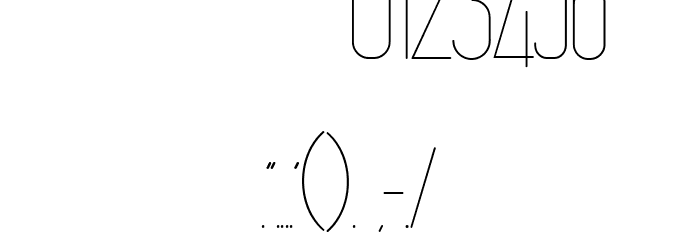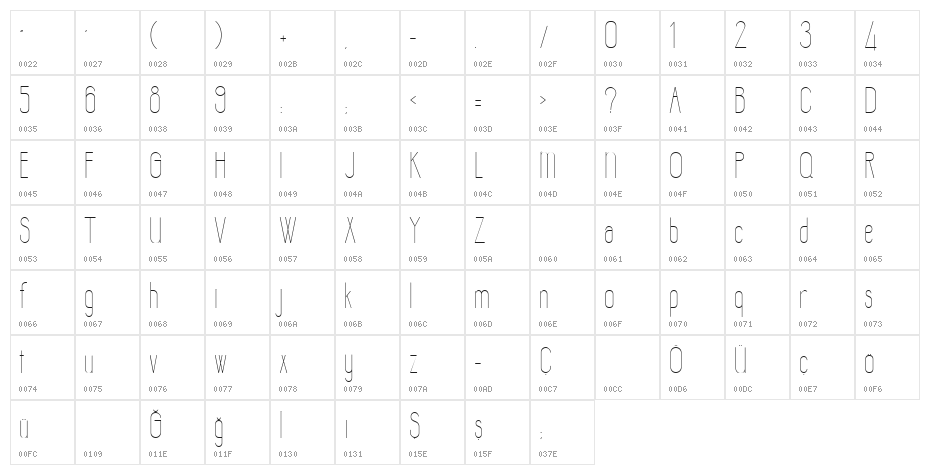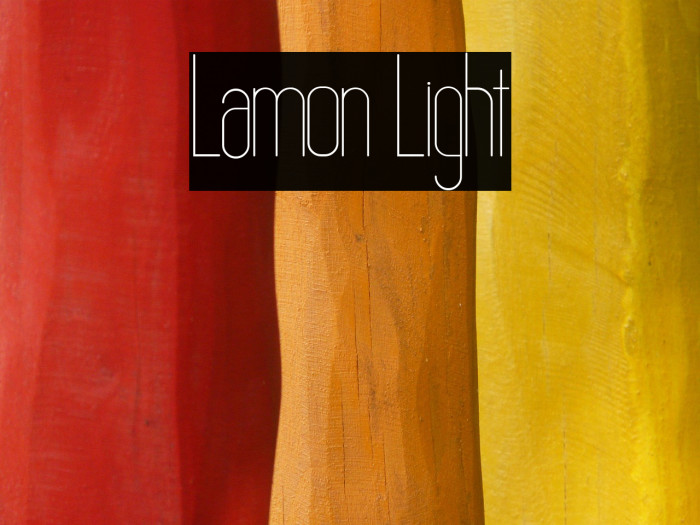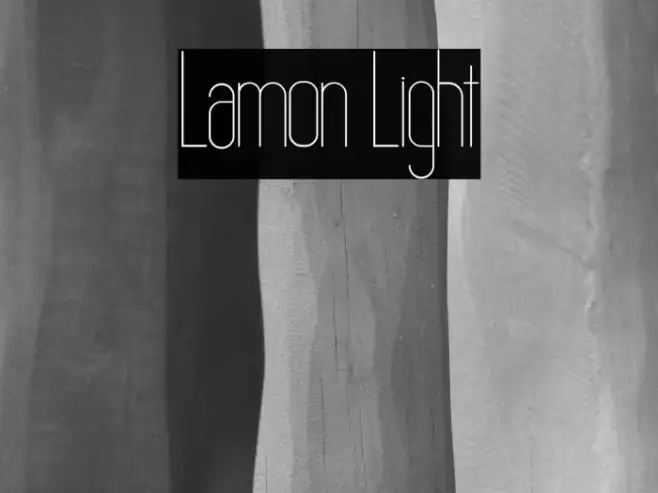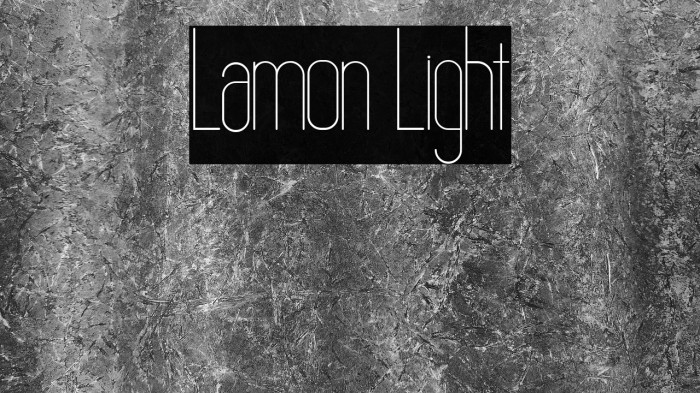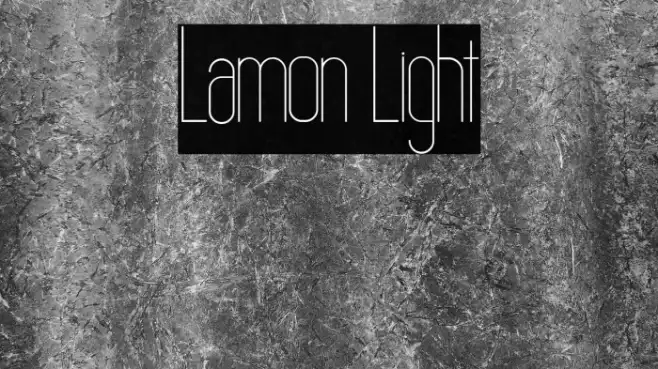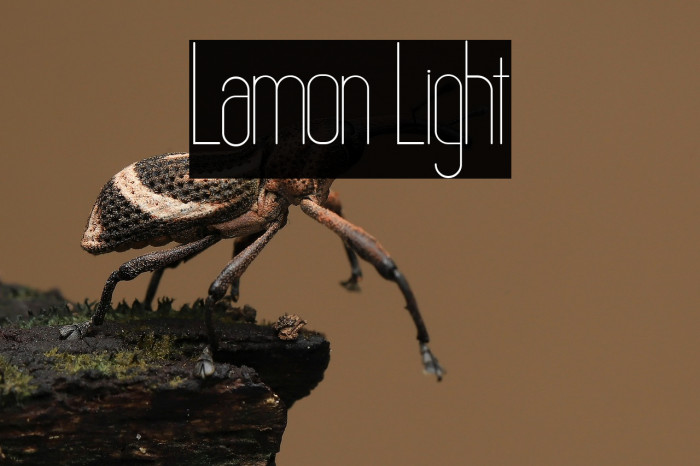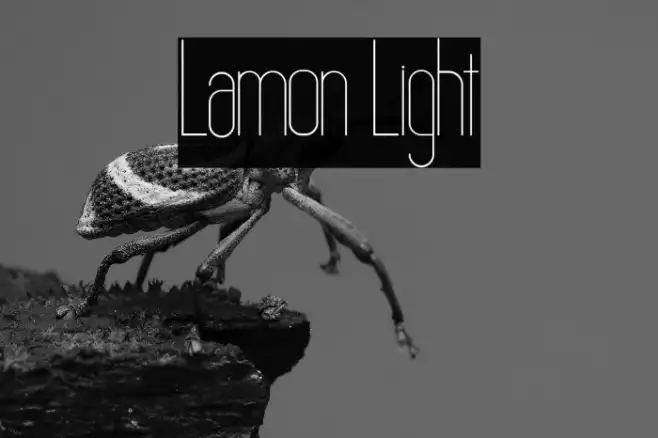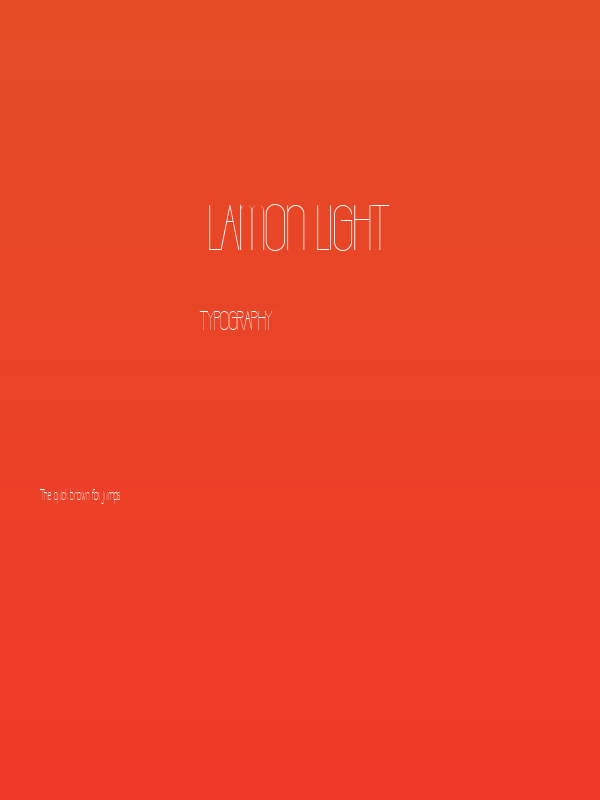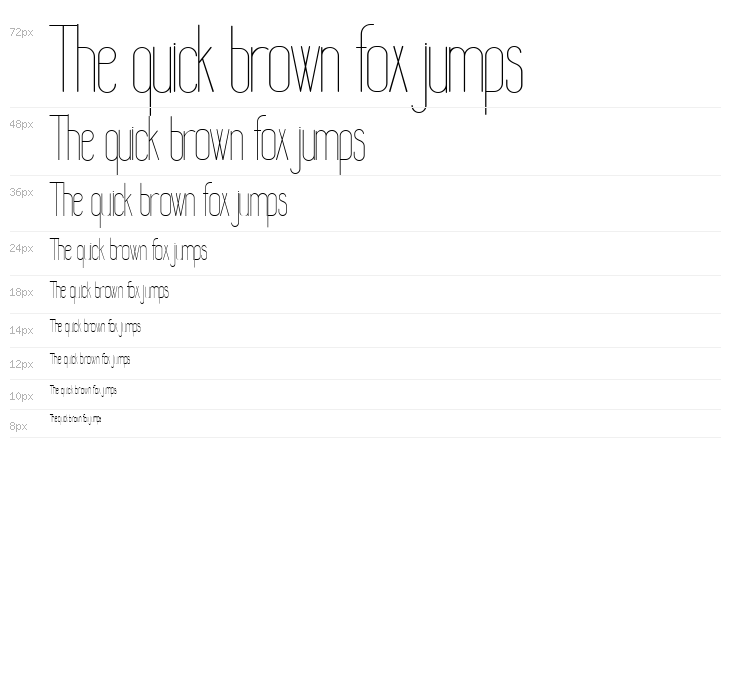
Lamon Light Font
Lamon Light Description
This font features a sleek and modern design with thin, elongated letterforms that exude elegance and sophistication. The characters are crafted with a minimalist approach, emphasizing clean lines and a refined aesthetic. The uppercase and lowercase letters maintain a consistent height, contributing to a harmonious and balanced appearance. Numbers and special characters are designed to complement the overall style, ensuring versatility across various applications. The font's airy and open feel makes it suitable for projects that require a contemporary and stylish touch.
| Proposed Projects | Ideal for fashion magazines, luxury branding, modern websites, and elegant invitations. |